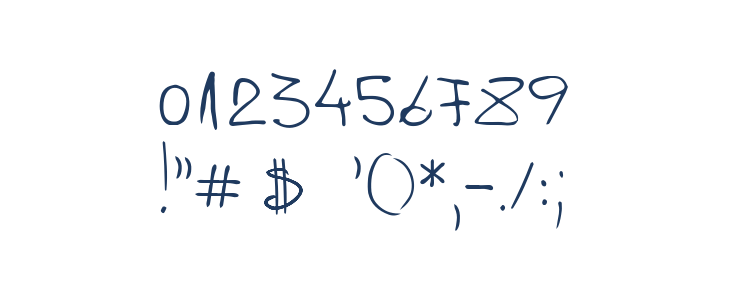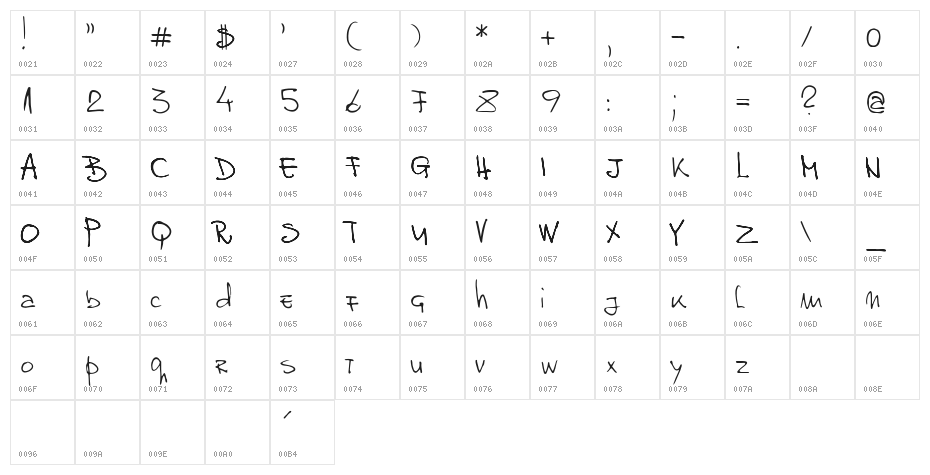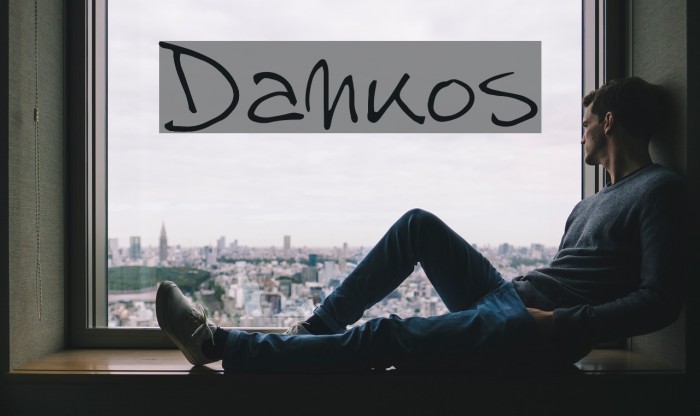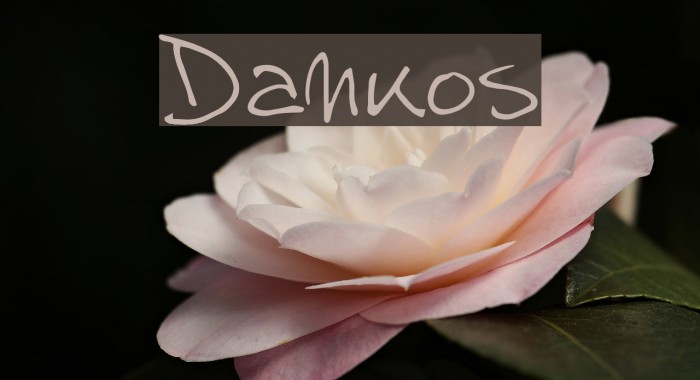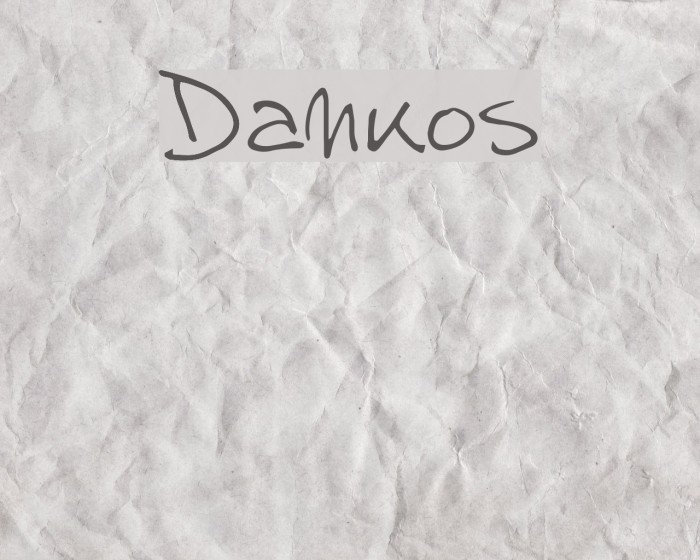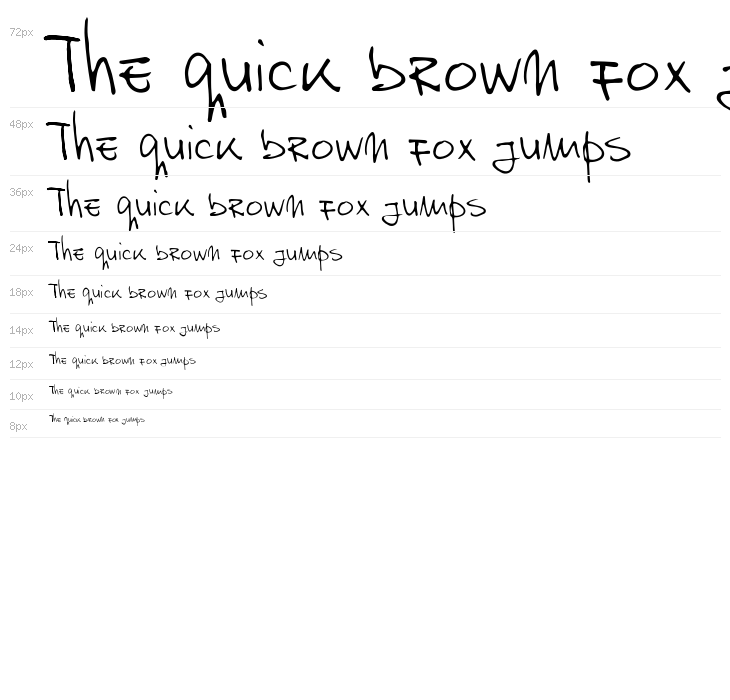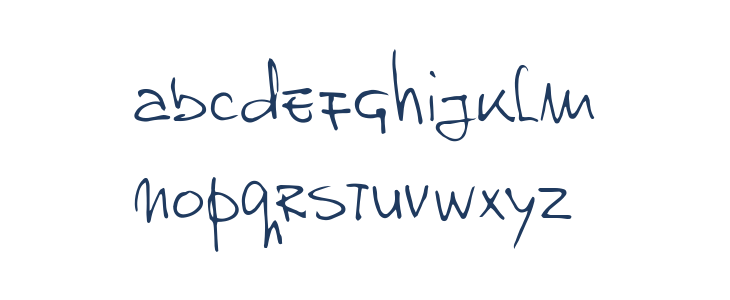
Dankos Font
Dankos Description
This font features a playful and casual handwritten style, characterized by its irregular and dynamic strokes. The letters have a lively and spontaneous appearance, with varying angles and curves that give it a unique personality. The uppercase letters are bold and expressive, while the lowercase letters maintain a consistent flow, adding to the overall informal aesthetic. The numbers and special characters are crafted with the same energetic style, making them stand out. This font is perfect for projects that require a personal touch or a sense of whimsy.
| Overall Style | Casual, Playful |
| Use Case | Headlines, Informal text, Creative projects |
| Proposed Projects | Ideal for greeting cards, children's books, casual branding, and social media graphics. |